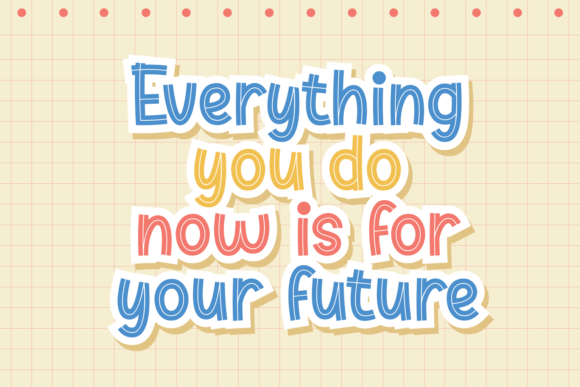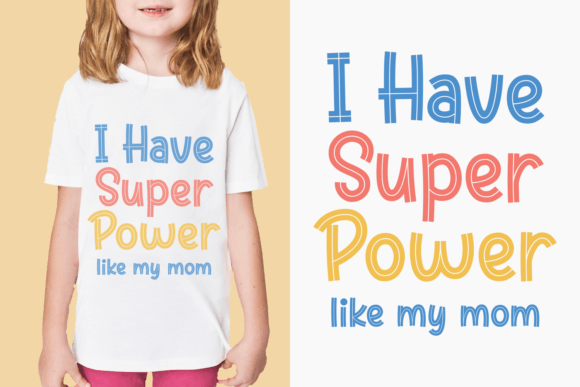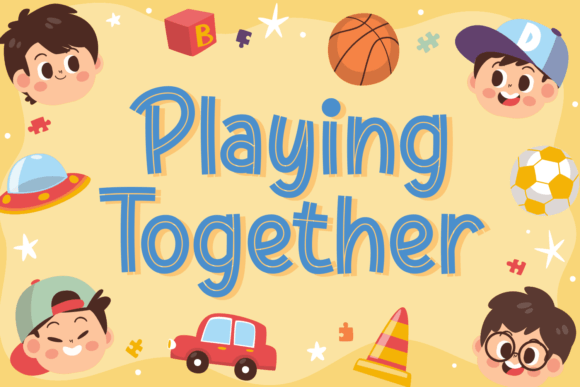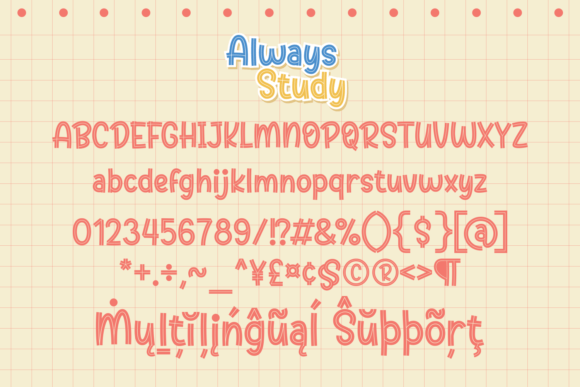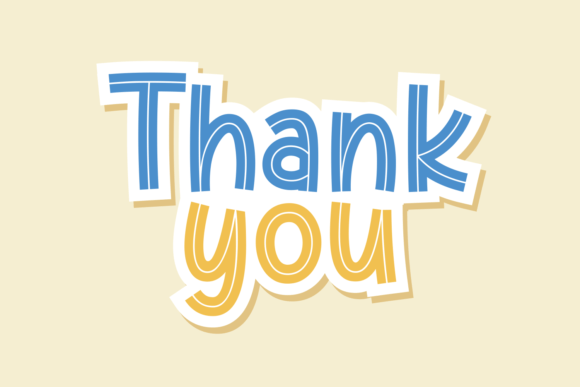
Introducing Always Study: The Happy Handwritten Font to Elevate Your Designs
Are you tired of using the same old fonts in your designs? Do you want to add a touch of happiness and fun to your creations? Look no further than Always Study, a delightful handwritten font that’s perfect for a wide range of design projects. In this article, we’ll dive into the features and benefits of Always Study, and explore how this font can take your designs to the next level.
What is Always Study?
Always Study is a happy handwritten font that’s designed to bring a sense of joy and playfulness to your designs. With its cheerful and bouncy letters, this font is sure to put a smile on your face and inspire your creativity. Whether you’re working on a branding project, packaging design, or social media graphics, Always Study is the perfect choice to add a personal touch and make your designs stand out.
Key Features of Always Study
• Handwritten style: Always Study has a unique handwritten style that’s both fun and elegant.
• Happy and cheerful: This font is designed to evoke a sense of happiness and joy, making it perfect for designs that need a playful touch.
• Versatile: Always Study can be used for a wide range of design projects, from branding and packaging to wedding invitations and social media graphics.
• Easy to read: Despite its playful style, Always Study is easy to read and understand, making it perfect for headlines, titles, and short paragraphs of text.
Use Cases for Always Study
So, what can you use Always Study for? The possibilities are endless! Here are some ideas to get you started:
• Branding: Use Always Study to create a unique and memorable brand identity that reflects your company’s personality and values.
• Packaging design: Add a touch of happiness and fun to your product packaging with Always Study.
• Logotype: Create a custom logotype that showcases your brand’s personality and style.
• Headline: Use Always Study to create eye-catching headlines that grab attention and draw readers in.
• Wedding invitation: Add a touch of whimsy and romance to your wedding invitations with Always Study.
Benefits of Using Always Study
So, why should you choose Always Study for your design projects? Here are just a few benefits of using this happy handwritten font:
• Unique and memorable: Always Study is a one-of-a-kind font that’s sure to make your designs stand out from the crowd.
• Emotional connection: This font is designed to evoke a sense of happiness and joy, helping you connect with your audience on an emotional level.
• Flexibility: Always Study can be used for a wide range of design projects, making it a versatile addition to your font library.
• Ease of use: This font is easy to read and understand, making it perfect for designs that need to communicate a message quickly and clearly.
In conclusion, Always Study is a happy handwritten font that’s perfect for designers and crafters who want to add a touch of happiness and fun to their designs. With its unique and memorable style, this font is sure to elevate your designs and help you connect with your audience on an emotional level. Whether you’re working on a branding project, packaging design, or social media graphics, Always Study is a versatile and easy-to-use font that’s sure to become a favorite in your font library.